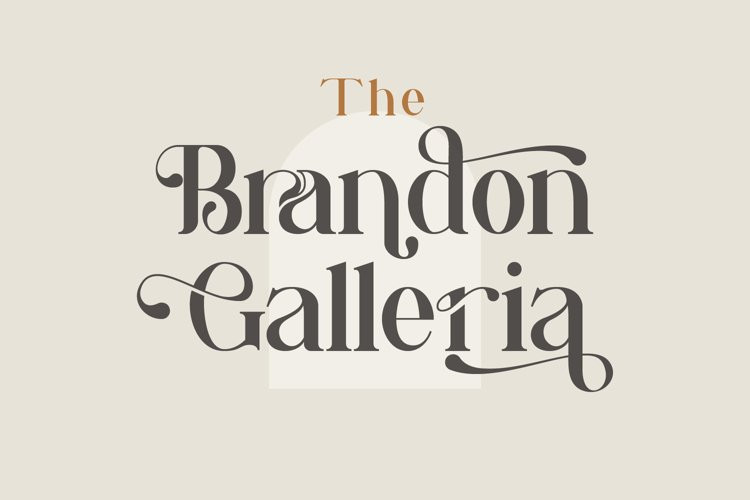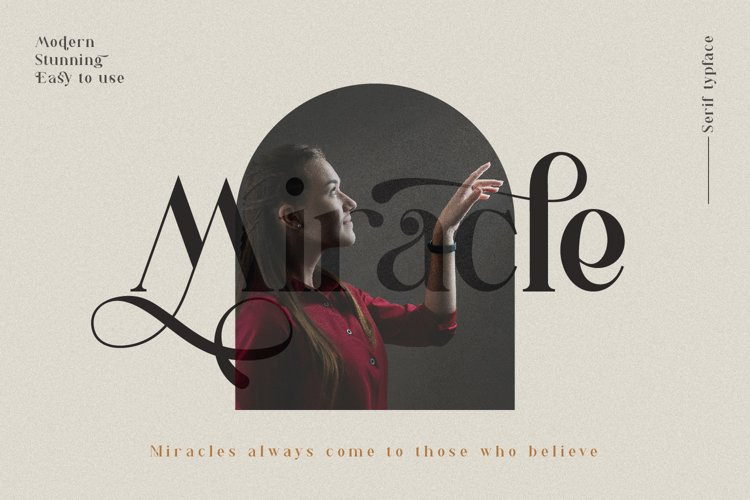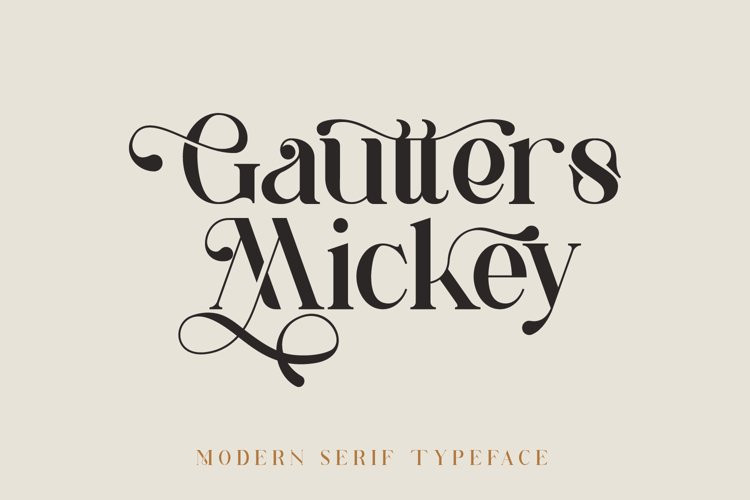
Gautters Mickey Font
“Gautters Mickey” is a unique modern serif font. comes with a large selection of alternative characters and ligatures.
The distinctive shape of each character makes this font even better for any design.
Create your own unique design by using this font. very suitable for formal and informal use.
Available in two types of styles: regular & italic.